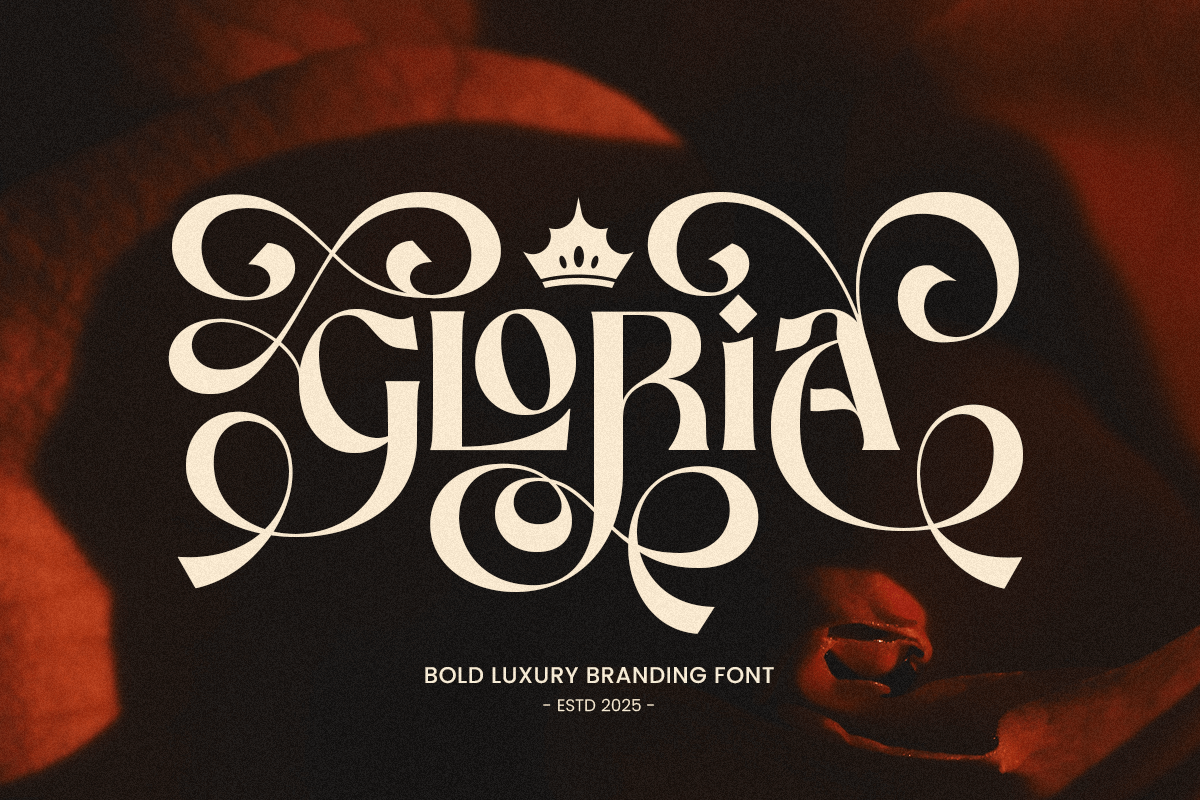
Gloria
-Bold Headline Branding FontGloria - Bold Headline Branding Font
GLORIA is a bold luxury branding font crafted to give your brand a sophisticated and high-end feel. With its striking letterforms and refined design, GLORIA is perfect for creating impactful logos, elegant branding, and premium design projects that demand attention.
Its bold, confident style adds a luxurious touch to any project, from fashion brands to upscale product packaging. Whether you’re working on a boutique logo, a luxury event invitation, or a high-end brand identity, GLORIA ensures your design stands out with grace and elegance.
GLORIA – Bold Luxury Branding Font Features
Bold, refined letterforms with a luxurious aesthetic
Perfect for high-end logos, branding, and upscale design
Elegant, professional design with great versatility
OpenType features for advanced typographic flexibility
Elevate your brand identity with GLORIA – the perfect font for bold and luxurious branding. ✨💎